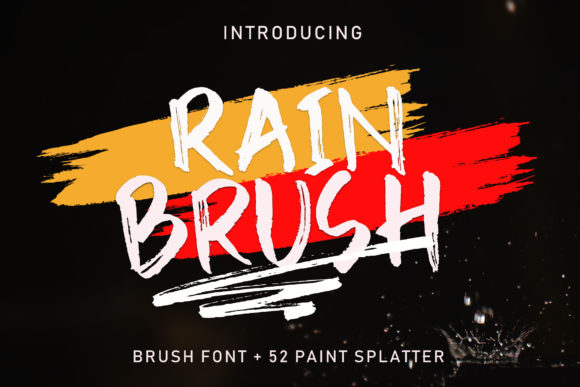
Rain Brush Font: Unleashing the Power of Urban Typography
Are you looking for a font that exudes confidence, energy, and an urban edge? Look no further than the Rain Brush Font. This bold and powerful script font is designed to add an authentic twist to your designs, setting you apart from the crowd. In this article, we’ll dive into the world of Rain Brush Font, exploring its features, benefits, and uses, as well as provide tips on how to make the most of this incredible typography asset.
The Urban Feel of Rain Brush Font
Rain Brush Font is all about capturing the essence of urban style. Its bold, expressive brushstrokes evoke the feeling of city streets, graffiti, and street art. The font’s authentic twist lies in its ability to blend ruggedness with sophistication, making it perfect for designs that require a strong, urban presence.
Whether you’re designing a logo, poster, or social media graphic, Rain Brush Font is sure to make a statement. Its unique character and urban feel will instantly elevate your design, giving it a bold and eye-catching quality that’s hard to ignore.
Key Features of Rain Brush Font
- Bold and Powerful: Rain Brush Font is designed to make a statement. Its bold, expressive brushstrokes command attention and add a level of sophistication to your designs.
- Authentic Twist: The font’s authentic twist lies in its ability to blend ruggedness with sophistication, making it perfect for designs that require a strong, urban presence.
- Urban Feel: Rain Brush Font is all about capturing the essence of urban style. Its bold, expressive brushstrokes evoke the feeling of city streets, graffiti, and street art.
- Script Font: Rain Brush Font is a script font, making it perfect for designs that require a touch of elegance and sophistication.
Benefits of Using Rain Brush Font
So, why choose Rain Brush Font for your designs? Here are just a few benefits of using this incredible typography asset:
- Adds a Touch of Urban Style: Rain Brush Font instantly adds a touch of urban style to your designs, setting you apart from the crowd.
- Versatile: The font is versatile and can be used for a wide range of designs, from logos and posters to social media graphics and more.
- Easy to Read: Despite its bold and expressive nature, Rain Brush Font is easy to read, making it perfect for designs that require a clear and concise message.
- Unique Character: The font’s unique character and urban feel will instantly elevate your design, giving it a bold and eye-catching quality that’s hard to ignore.
Tips for Using Rain Brush Font
To make the most of Rain Brush Font, here are a few tips to keep in mind:
- Use it Boldly: Rain Brush Font is designed to make a statement, so don’t be afraid to use it boldly. Experiment with different sizes and colors to create a lasting impression.
- Pair it with Simple Backgrounds: To really make Rain Brush Font pop, pair it with simple backgrounds that won’t compete with the font’s bold and expressive nature.
- Experiment with Colors: The font’s urban feel lends itself well to bold and bright colors. Experiment with different color combinations to find the perfect fit for your design.
- Use it for Headlines: Rain Brush Font is perfect for headlines and titles, where its bold and expressive nature can really shine.
Who is Rain Brush Font for?
Rain Brush Font is perfect for designers, artists, and marketers who want to add a touch of urban style to their designs. Whether you’re working on a logo, poster, social media graphic, or website, this font is sure to make a statement.
- Designers: Graphic designers, UI/UX designers, and visual designers will love Rain Brush Font for its bold and expressive nature.
- Artists: Artists and illustrators will appreciate the font’s urban feel and authentic twist.
- Marketers: Marketers and advertisers will love Rain Brush Font for its ability to add a touch of sophistication and elegance to their campaigns.
In conclusion, Rain Brush Font is a bold and powerful script font that adds an authentic twist to your designs. Its urban feel and unique character make it perfect for designs that require a strong, urban presence. With its versatility, ease of use, and bold and expressive nature, Rain Brush Font is sure to become a go-to font for designers, artists, and marketers alike.